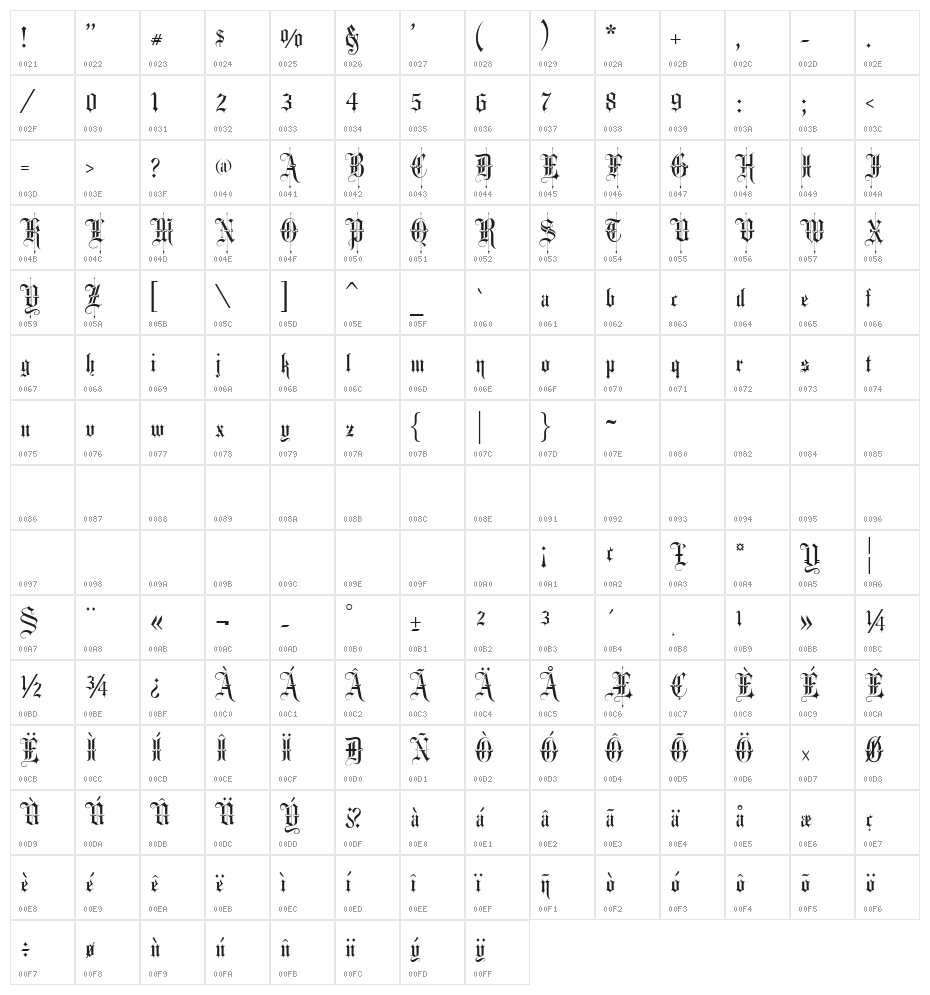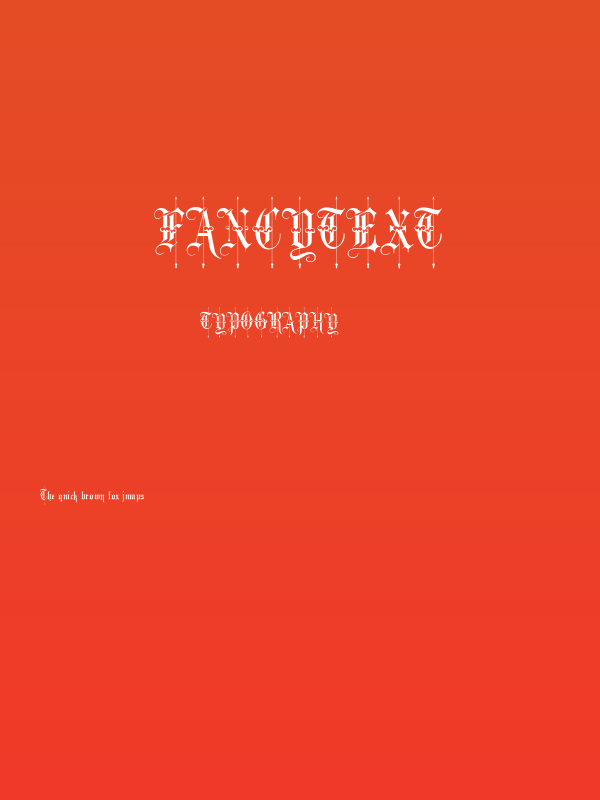
FancyText Font
FancyText Description
This font is a striking example of Blackletter style, characterized by its intricate and ornate design. The uppercase letters are highly decorative, featuring elaborate flourishes and sharp, angular strokes that give it a medieval appearance. The lowercase letters maintain a similar aesthetic, with a slightly more subdued level of ornamentation, ensuring readability while preserving the overall Gothic feel. The numerals and special characters are consistent with this theme, showcasing the same bold and dramatic flair. This font's high contrast between thick and thin strokes enhances its visual impact, making it ideal for creating a sense of historical or traditional elegance.
| Proposed Projects | Ideal for projects requiring a historical or Gothic touch, such as book covers, posters, or branding for vintage-themed events. |